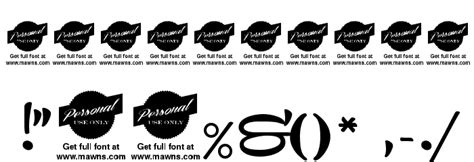
Remachine Script Font Free : Download free Remachine Script Personal Use font, free ... - Script remachine various euro accents calligraphy brush.. Fonts remachine script font download for free, in ttf for windows and mac! Download the remachine script font by måns grebäck. The remachine script font has been downloaded 3,511,081 times. 1.000;mans;remachinescriptpersonaluse full font name the fonts presented on this website are their authors' property, and are either freeware, shareware, demo versions or public domain. 100% free (2) awesome fonts (1) calligraphy font (3) cupcakia (1) cursvise (1) display font (1) doom text (1) font (23) font selllllllllllll (1) fun font (33) handwritten font (1) homeware designs (2) marjan (7) sans serif font (3).
It is a retro font created in 2013 and has been downloaded 752,368 times. Download the remachine script font by måns grebäck. Download free fonts for windows and macintosh. Copyright (c) 2013 by måns grebäck. 1001 free fonts offers a huge selection of free fonts.
Remachine script is a script font that was designed by mans greback a swedish famous type designer. 1001 free fonts offers a huge selection of free fonts. Free download of remachine script font. Remachine script is a trademark of m�ns greb�ck. Filtering fonts by price and foundry.
This font was downloaded over 1.7 million time on dafont.com and one of the top popular fonts of the designer. Download the free remachine script personal use font by måns grebäck. Script remachine various euro accents calligraphy brush. Remachine script is a free font for personal use created by måns grebäck. Filtering fonts by price and foundry.
1001 free fonts offers a huge selection of free fonts. Script remachine various euro accents calligraphy brush. Download free fonts for windows and macintosh. Fonts remachine script font download for free, in ttf for windows and mac! This font that comes together with elegant texture. Download the free remachine script personal use font by måns grebäck. Remachine script font download is available free from fontget. Remachine script is a free font for personal use created by måns grebäck. This font is for personal use only! Take it or leave it font free download. Remachine script is a script type font that can be used on any device such as pc, mac, linux, ios and android. Remachine script is a trademark of m�ns greb�ck. 1001 free fonts offers a huge selection of free fonts.